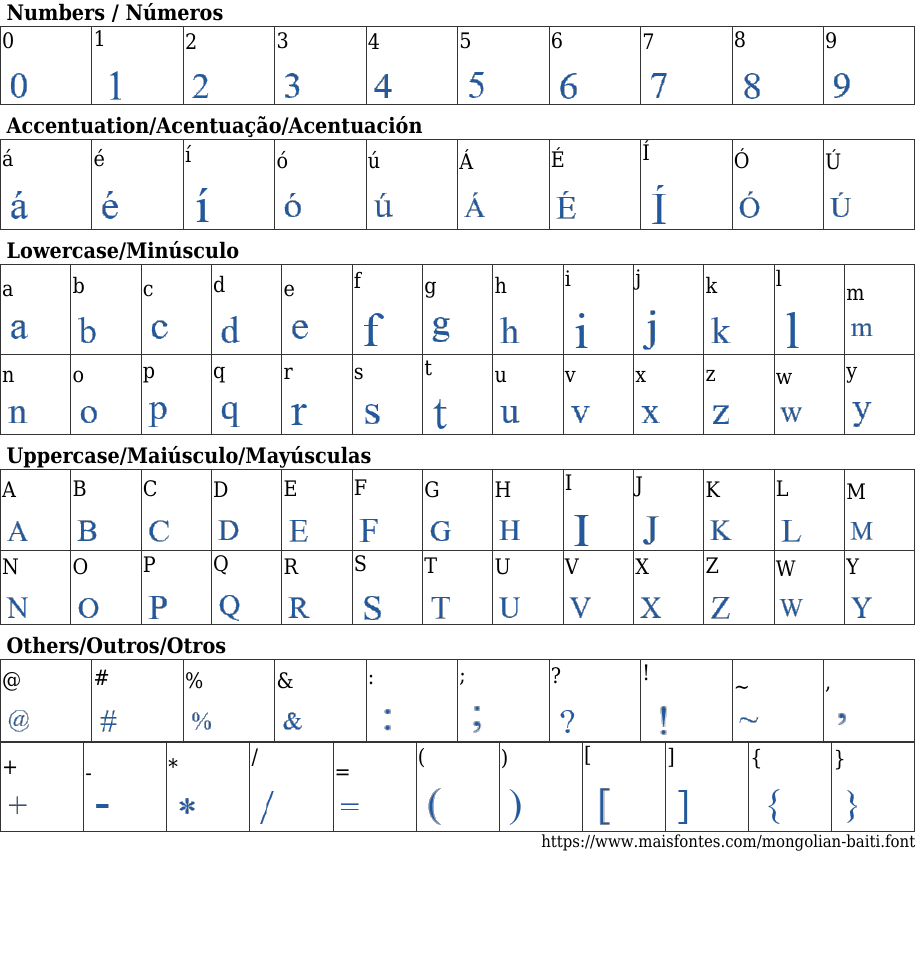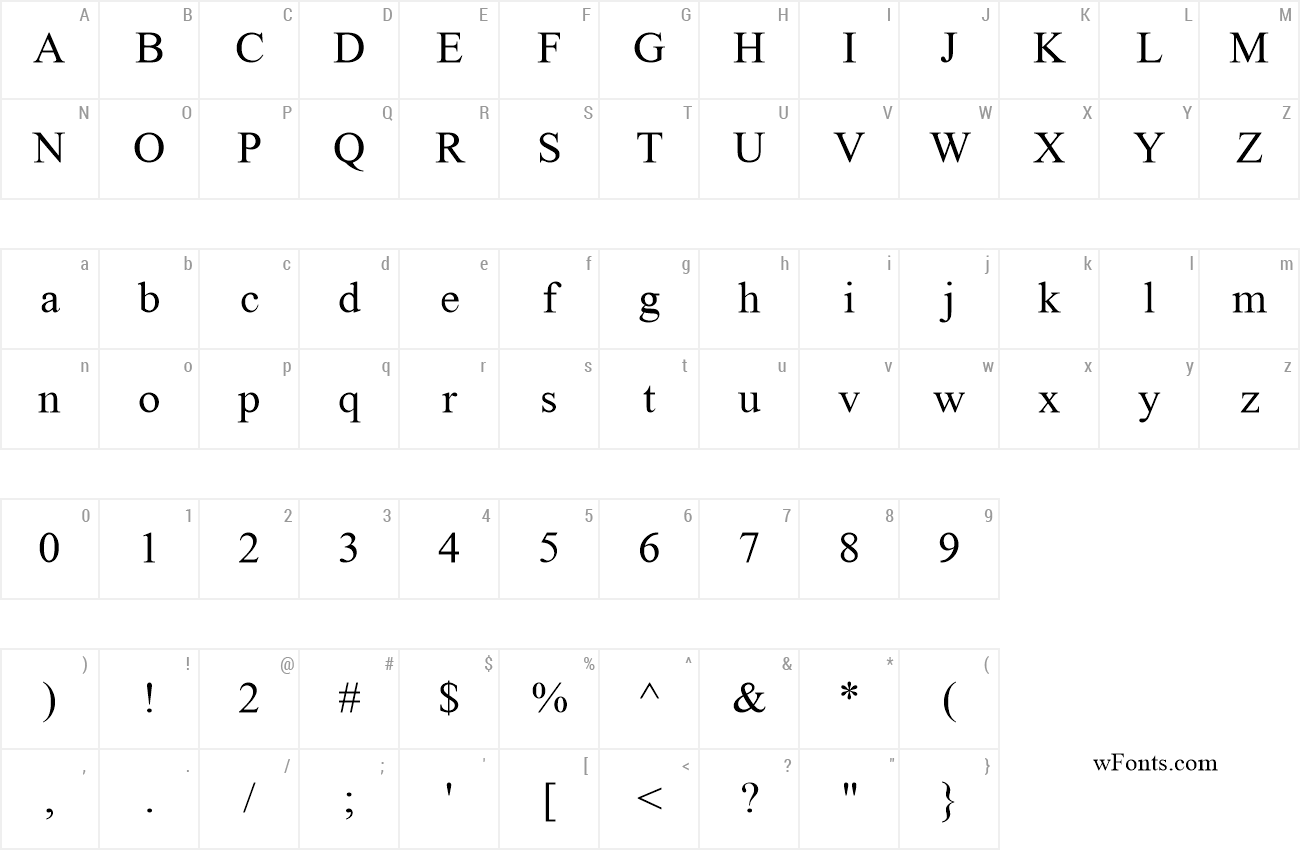
Mongolian Baiti Font - A classic serif font with sharp lines and traditional elegance. Download mongolian baiti font free! Discover the free mongolian baiti regular font at free font download ! This font features a classic serif style with sharp, clean lines and a. Learn about mongolian baiti, a mongolian font designed by beijing founder electronics co. Installable on pc, mac, linux, ios, and android platforms.
Learn about mongolian baiti, a mongolian font designed by beijing founder electronics co. Download mongolian baiti font free! Discover the free mongolian baiti regular font at free font download ! Installable on pc, mac, linux, ios, and android platforms. This font features a classic serif style with sharp, clean lines and a. A classic serif font with sharp lines and traditional elegance.
Learn about mongolian baiti, a mongolian font designed by beijing founder electronics co. Installable on pc, mac, linux, ios, and android platforms. A classic serif font with sharp lines and traditional elegance. Download mongolian baiti font free! This font features a classic serif style with sharp, clean lines and a. Discover the free mongolian baiti regular font at free font download !
This font features a classic serif style with sharp, clean lines and a. A classic serif font with sharp lines and traditional elegance. Installable on pc, mac, linux, ios, and android platforms. Learn about mongolian baiti, a mongolian font designed by beijing founder electronics co. Discover the free mongolian baiti regular font at free font download !
Download mongolian baiti font free! This font features a classic serif style with sharp, clean lines and a. Installable on pc, mac, linux, ios, and android platforms. Learn about mongolian baiti, a mongolian font designed by beijing founder electronics co. Discover the free mongolian baiti regular font at free font download !
Discover the free mongolian baiti regular font at free font download ! Installable on pc, mac, linux, ios, and android platforms. A classic serif font with sharp lines and traditional elegance. Learn about mongolian baiti, a mongolian font designed by beijing founder electronics co. This font features a classic serif style with sharp, clean lines and a.
Installable on pc, mac, linux, ios, and android platforms. Download mongolian baiti font free! A classic serif font with sharp lines and traditional elegance. Discover the free mongolian baiti regular font at free font download ! This font features a classic serif style with sharp, clean lines and a.
This font features a classic serif style with sharp, clean lines and a. Download mongolian baiti font free! Learn about mongolian baiti, a mongolian font designed by beijing founder electronics co. Discover the free mongolian baiti regular font at free font download ! A classic serif font with sharp lines and traditional elegance.
This font features a classic serif style with sharp, clean lines and a. A classic serif font with sharp lines and traditional elegance. Discover the free mongolian baiti regular font at free font download ! Installable on pc, mac, linux, ios, and android platforms. Learn about mongolian baiti, a mongolian font designed by beijing founder electronics co.
Download mongolian baiti font free! A classic serif font with sharp lines and traditional elegance. Installable on pc, mac, linux, ios, and android platforms. Discover the free mongolian baiti regular font at free font download ! Learn about mongolian baiti, a mongolian font designed by beijing founder electronics co.
Installable on pc, mac, linux, ios, and android platforms. Discover the free mongolian baiti regular font at free font download ! Learn about mongolian baiti, a mongolian font designed by beijing founder electronics co. Download mongolian baiti font free! This font features a classic serif style with sharp, clean lines and a.
This font features a classic serif style with sharp, clean lines and a. Installable on pc, mac, linux, ios, and android platforms. Learn about mongolian baiti, a mongolian font designed by beijing founder electronics co. A classic serif font with sharp lines and traditional elegance. Download mongolian baiti font free!
Installable on pc, mac, linux, ios, and android platforms. Discover the free mongolian baiti regular font at free font download ! Learn about mongolian baiti, a mongolian font designed by beijing founder electronics co. A classic serif font with sharp lines and traditional elegance. Download mongolian baiti font free!
A classic serif font with sharp lines and traditional elegance. This font features a classic serif style with sharp, clean lines and a. Learn about mongolian baiti, a mongolian font designed by beijing founder electronics co. Discover the free mongolian baiti regular font at free font download !